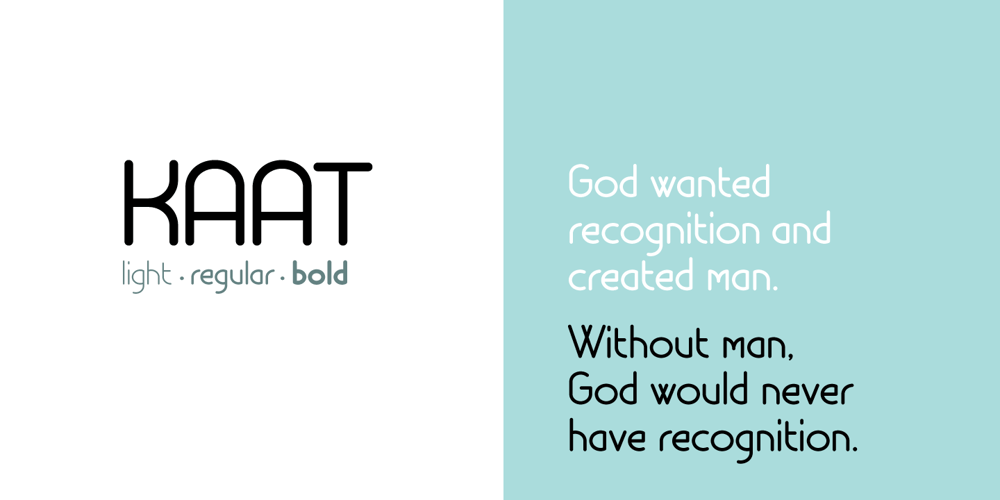
Kaat Font Family was designed by Chris Nuijen and published by ChrisNuijen.com. Kaat contains 3 styles and family package options. “Kaat” is a new type (2013). It was designed by Chris Nuijen and named after his daughter Kaat. It represents the period in which everyone has their face behind the latest mobile phone screen or interactive games console. “Kaat”is slick, modern and progressive, to reflect our busy immediate life style, whilst providing the essentials in a period where people can be judged on television. Kaat is here to stay and to evolve. Everyone wants to try to be that little bit different, but essentially we are all the same, with the same inherent needs, just like babies or children. We need to be fed, watered, nurtured and loved, the only difference is in today’s world you can do all that from behind a screen. “Kaat” bridges that gap, transcending the basic needs of type, with the sophistication and fast paced sharpness of today, everyone wants to be different but we all stay the same, this is a reflection in the thickness and shape of each glyph. The font represents how we are molded and cast differently in yet we still stay the same, because we need the repetition! Everything needs to be done quicker, simpler and cheaper. We eat we sleep we communicate.